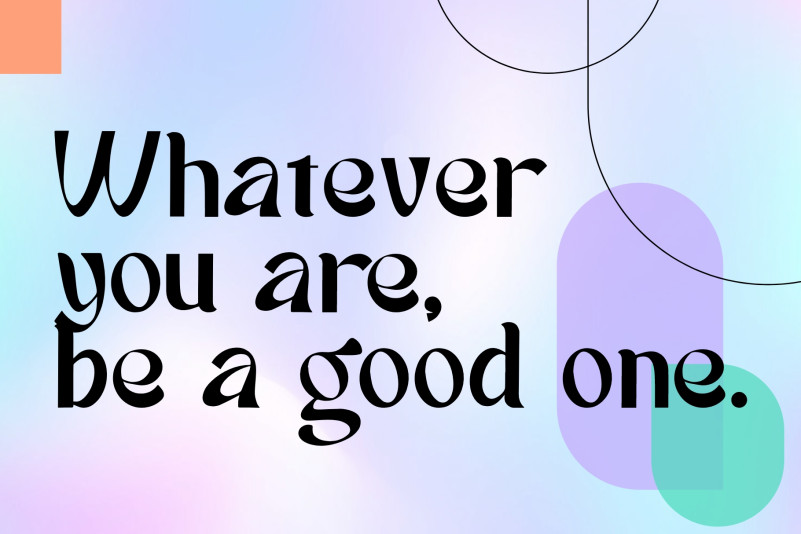
The Belagio Display Font has a long, condensed shape with an alluring shape. Designed with a soft hand touch and carving it looks more artistic in it, this font is suitable for use in posters, classic design projects, websites, blogs and product packaging.